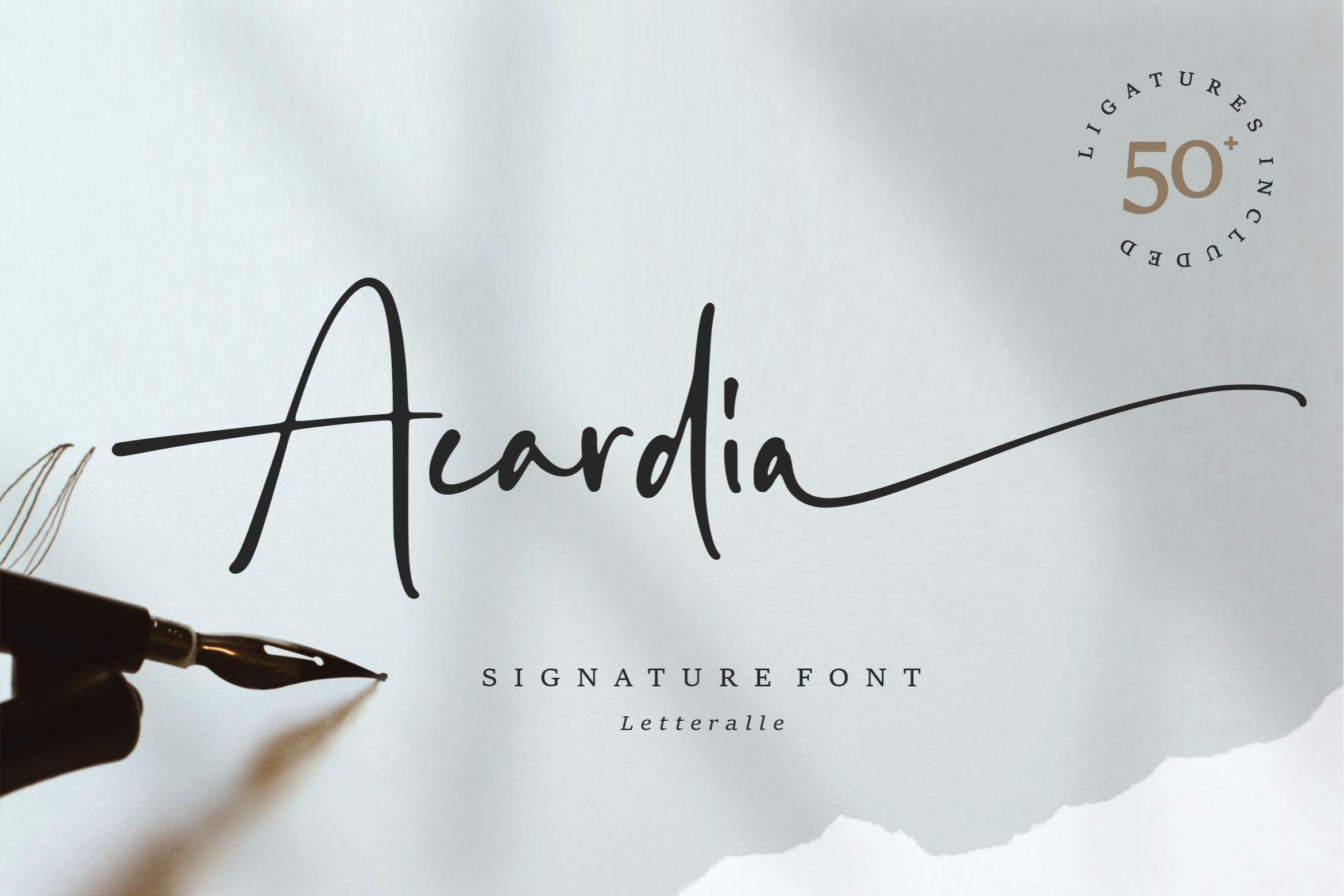
Acardia Signature Font
I'd like to introduce you Acardia!
a stunnig signature font. Font with natural flow and feminine style. Each letter is deliberately imperfect to make it look more natural and charming. Acardia comes with multilingual support, long range ligature, and ending swash from a-z.
Acardia is perfect for many design needs such as merch, T-shirts, titles, book covers, social media posts, websites, events, and many more.